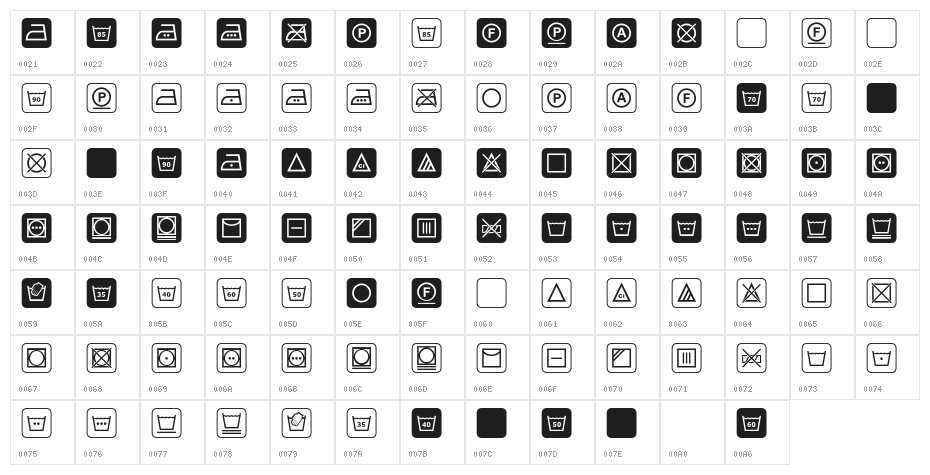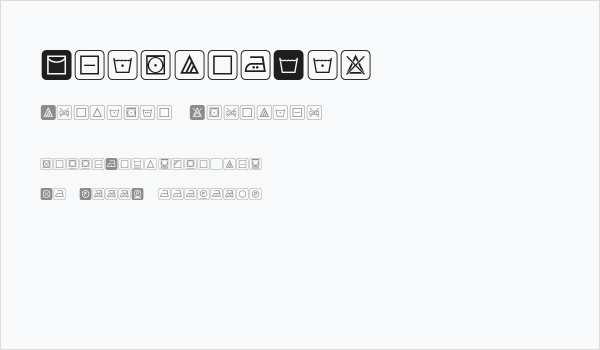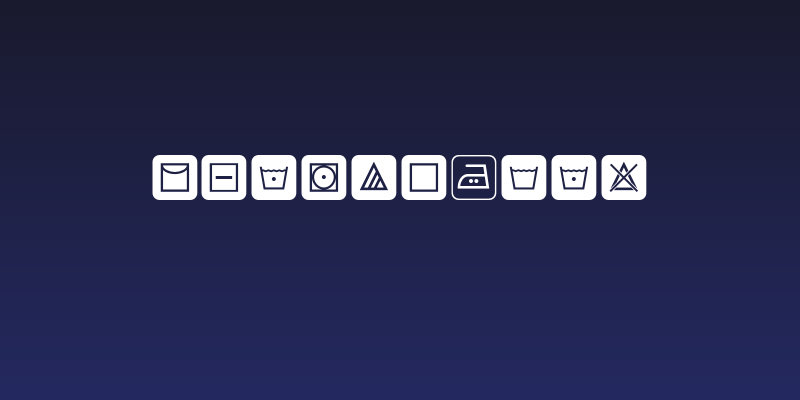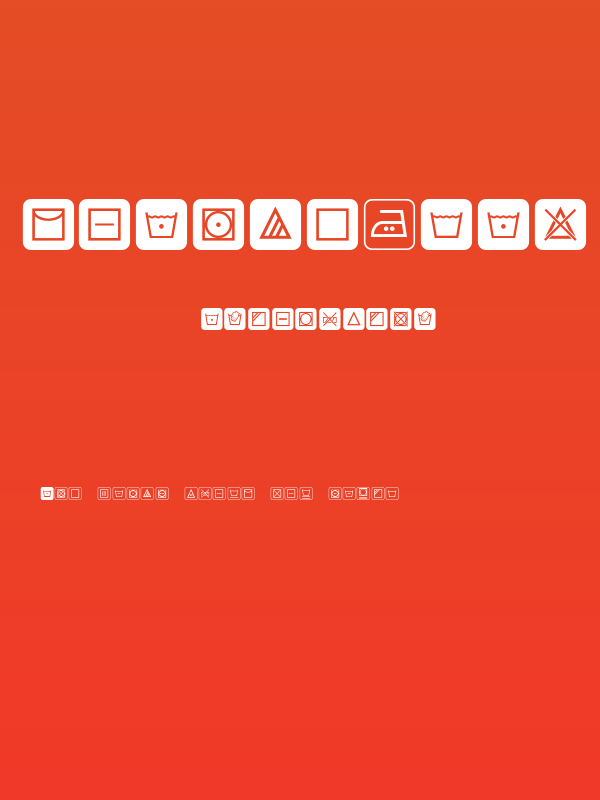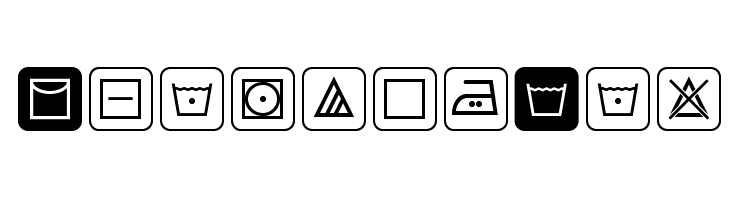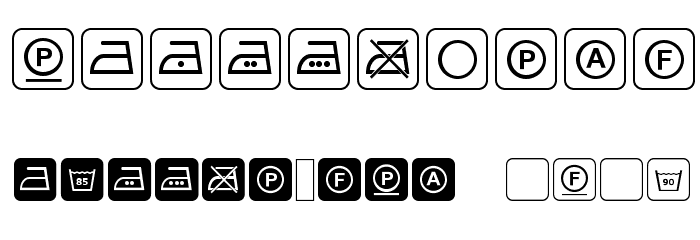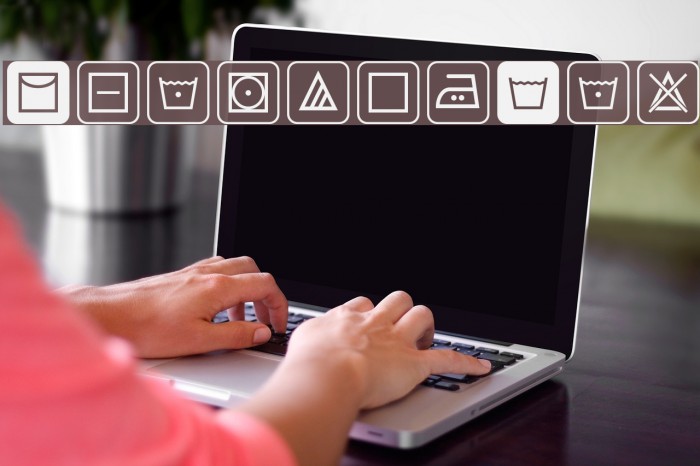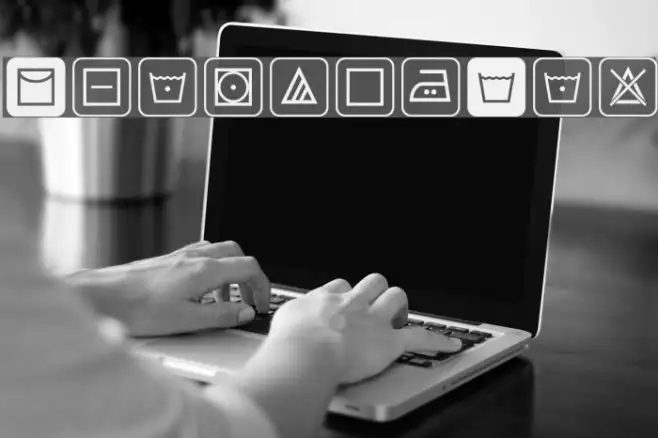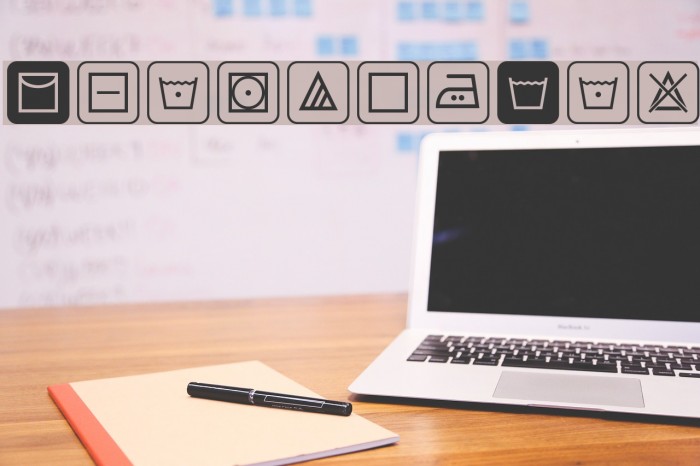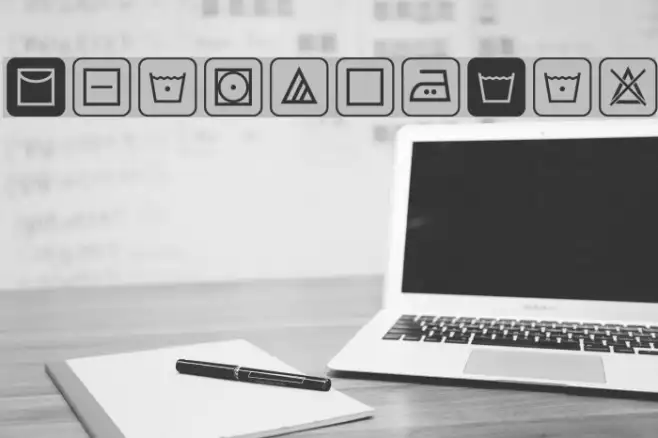
Notice3Std Font
Notice3Std Description
A pictogram-based symbol font featuring laundry and garment care icons, each enclosed in a rounded square or rectangle. The icons are rendered in both filled and outlined styles, with clear, simple linework and high legibility. The set includes symbols for washing, drying, ironing, bleaching, and professional cleaning instructions.
| Overall Style | Modern, Functional, Pictographic |
| Use Case | Icons, Labels, Instructional graphics |
| Proposed Projects | Clothing labels, care instruction guides, packaging, user manuals, infographics. |